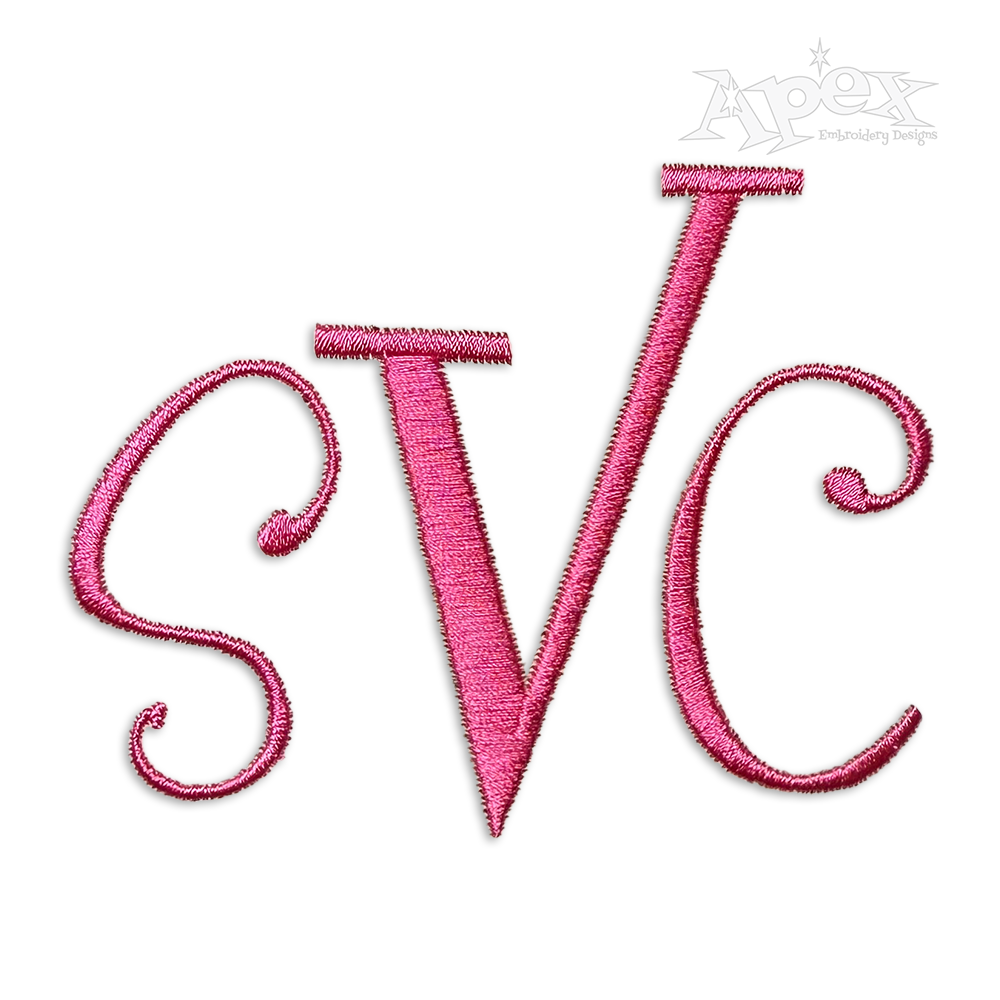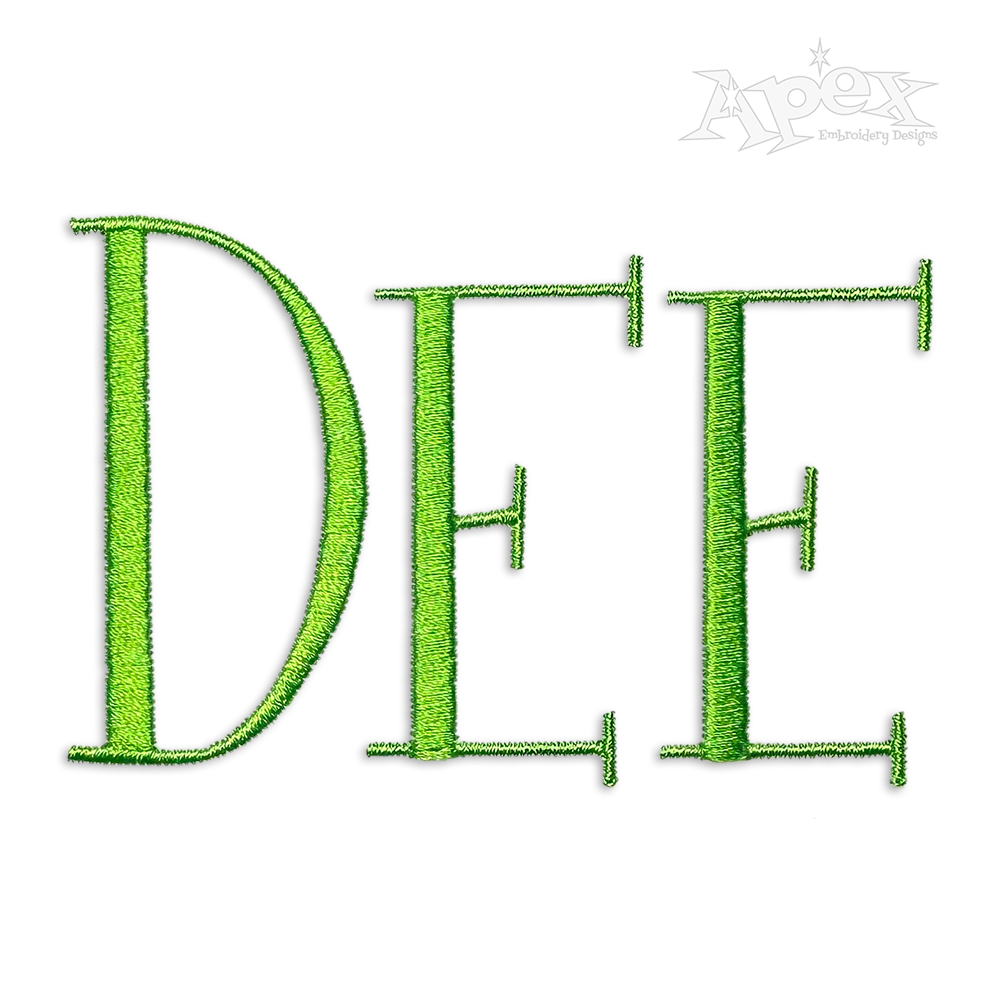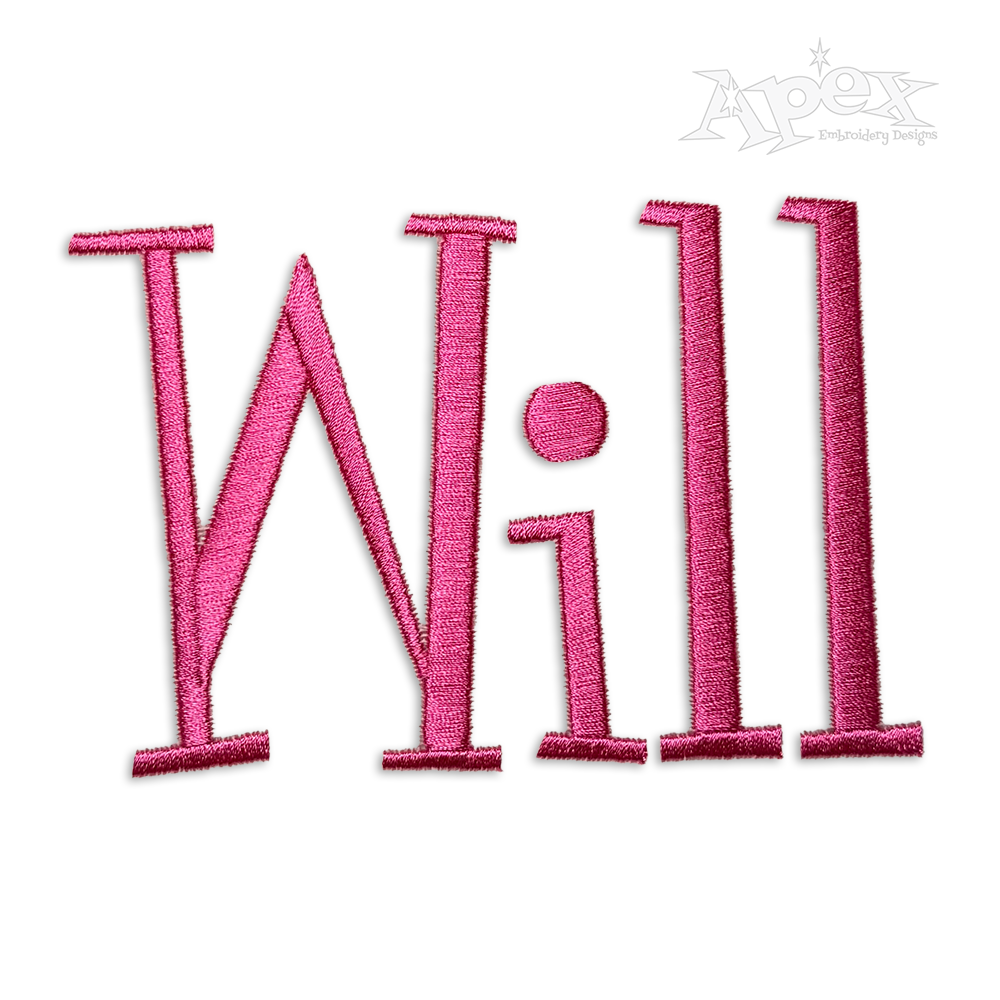
Funky Fun Embroidery Font
There is an undeniable joy in watching an embroidery machine trace curves that refuse to take themselves too seriously. The Funky Fun Embroidery Font was born from a desire to blend mid-century mod bounce with contemporary boutique lettering, capturing an upbeat, carefree rhythm in every stitch. As the needle glides through each contour, generous satin columns create a rich, luminous surface that catches the light with vibrant confidence. Whether personalizing a child's heirloom birthday romper or adding unexpected whimsy to casual resort wear, this alphabet delivers a spirited, custom monogramming experience that radiates genuine handmade personality.
Engineered for impeccable consistency across diverse applications, this collection features eight complete sets organized across four proportional sizing tiers. Every glyph has been manually plotted in a smooth satin stitch alphabet to ensure sharp crests, balanced densities, and high stitch-out reliability:
- 1.0-inch Set: Petite and punchy, scaled gracefully with matching lowercase characters for subtle monogramming.
- 2.0-inch Set: Balanced centerpiece scale pairing a 2.0-inch uppercase with a 1.5-inch lowercase alphabet.
- 3.0-inch Set: Bold and graphic sizing designed for stand-out statements on larger accessories.
- 4.0-inch Set: Grand scale display lettering offering dramatic visual impact and generous satin luster.
Project Ideas for Funky Fun Embroidery Font
The lively, offbeat character of this alphabet unlocks boundless possibilities for personalized gifting and playful wardrobe accents:
- Bespoke Boutique Kidswear: Stitch personalized names or vibrant single-letter monograms onto children's organic cotton tees, bubble rompers, and sun hats.
- Resort & Poolside Gear: Bring sunny, retro flair to oversized terrycloth beach towels, striped canvas cabana bags, and canvas totes.
- Casual Denim Customization: Transform vintage denim jackets, chore coats, and back pockets with bold, expressive lettering that looks custom-tailored.
- Festive & Milestone Gifting: Create treasured keepsakes by embroidering celebratory birthday banners, playful holiday stockings, and whimsical camp laundry bags.
- Quirky Kitchen & Table Linens: Add cheerful energy to waffle-weave bar towels, picnic placemats, and personalized hostess aprons.
Because the letterforms embrace an organic, buoyant posture, thoughtful placement can dramatically elevate your finished pieces:
- Left-Chest Alignments: Use the 1-inch or 2-inch scales positioned 7 to 9 inches down from the shoulder seam for a modern, relaxed aesthetic on sweaters and tees.
- Centered Horizontal Framing: The 3-inch and 4-inch sizes thrive when floated across the center chest of hoodies, back yokes of jackets, or centered within hoop-framed wall art.
- Corner Diagonals: Angle a single funky initial on the lower diagonal corner of canvas tote bags or beach throw blankets for an asymmetrical, curated look.
Funky Fun Embroidery Font Craft & Letterform Details
Behind the effortless charm of the Funky Fun Embroidery Font lies rigorous digitizing precision. Unlike standard typography, a freeform alphabet with dramatic weight shifts requires meticulous stitch management to prevent puckering and maintain structural symmetry. Every curve, loop, and taper has been plotted with calculated pull compensation and directional underlay that stabilizes the fabric beneath without building up stiff bulk.
The letterforms feature gently flared stems, cheerful teardrop terminals, and an organic, undulating baseline that keeps typed words looking hand-lettered rather than mechanical. The satin stitch paths are mapped with fluid angle transitions, creating a liquid-like sheen as threads reflect light across each sweep and swell. This thoughtful craftsmanship ensures that every stitched letter retains its bold silhouette, silky tactile feel, and delightfully funky soul on fabrics ranging from crisp cotton poplin to plush terry cloth.